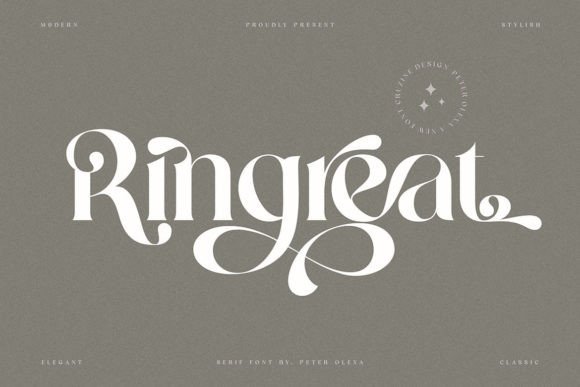
Journey into the world of typographic artistry with Ringreat, the serif font family that embodies elegance and exclusivity. Designed by JumboDesign, Ringreat is a masterpiece of precision, meticulously crafted to exude sophistication and elevate your creative projects to new heights.
Adorned with refined curves and sharp edges, Ringreat carries an aura of refinement, making it the perfect choice for luxury branding, editorial layouts, and high-end designs. Its carefully crafted letterforms dance across the page, creating an unforgettable visual experience that captivates and enchants.
Indulge in the limitless creative possibilities that Ringreat offers. Whether you're crafting logos, designing marketing materials, or creating stunning social media graphics, Ringreat's versatility knows no bounds. Its PUA encoding ensures effortless access to a treasure trove of delightful glyphs and swashes, unlocking a world of creative expression.
With Ringreat, your words take on a life of their own, commanding attention and leaving a lasting impression. Elevate your designs to the realm of luxury and sophistication, and make a statement that resonates with your audience. Ringreat is more than just a font; it's an investment in your creative future, a tool that empowers you to unlock your full potential and leave a lasting legacy through your designs.
Embrace the allure of Ringreat today and embark on a journey of creative excellence. Experience the transformative power of typography and let your designs shine brighter than ever before. Ringreat awaits you, ready to unleash your creativity and elevate your designs to new heights of sophistication and elegance.